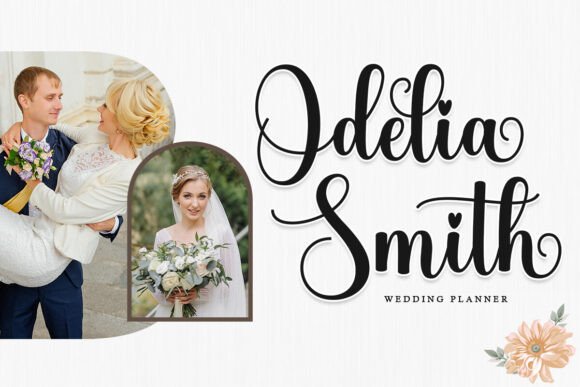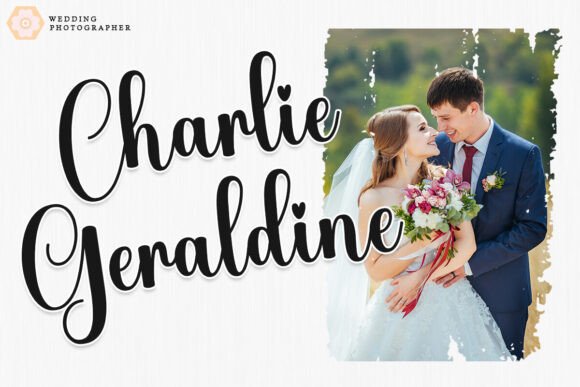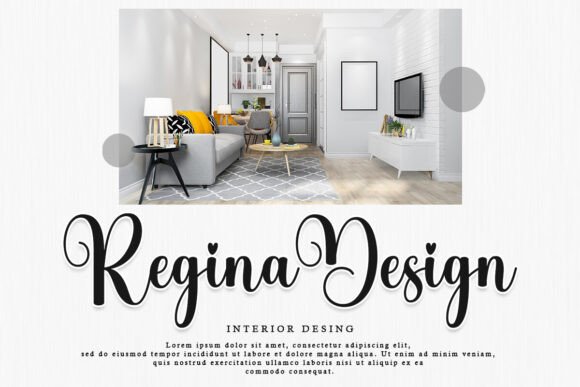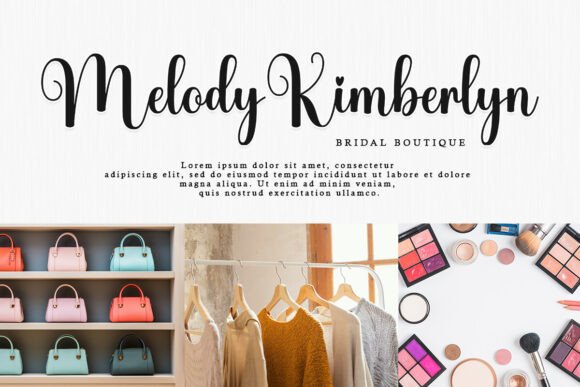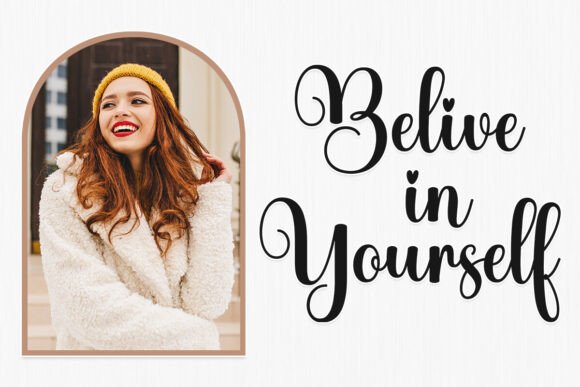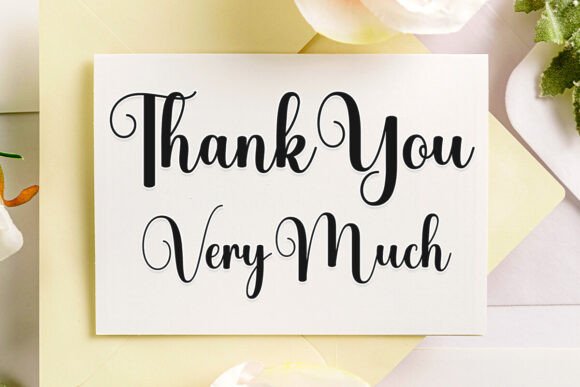
Ganesha Font: The Handwritten Font that Brings Warmth and Love to Your Designs
In the world of typography, fonts play a crucial role in conveying emotions and setting the tone for a design. Among the numerous fonts available, Ganesha stands out as a unique and captivating handwritten font that exudes warmth and love in every stroke. With its distinctive touch and alluring variety of letterforms, Ganesha brings a sense of authenticity and tenderness that permeates into every design.
The Unique Characteristics of Ganesha Font
Ganesha is a carefully crafted handwritten font that showcases a high level of attention to detail. Each letterform is meticulously designed to convey a sense of warmth and love, making it perfect for designs that require a personal touch. The font’s unique characteristics include:
- Handwritten style: Ganesha boasts a beautiful handwritten style that gives designs a personal and human touch.
- Alluring variety of letterforms: The font features a wide range of letterforms that add visual interest and depth to designs.
- Authenticity and tenderness: Ganesha’s distinctive touch brings a sense of authenticity and tenderness to every design.
Ganesha’s versatility makes it suitable for a wide range of design applications, including:
- Invitations: Add a touch of warmth and love to your invitations, making them extra special for weddings, birthdays, and other celebrations.
- Greeting cards: Create heartfelt greeting cards for various occasions, such as holidays, thank-you notes, and get-well cards.
- Branding: Infuse your brand with a sense of authenticity and tenderness, making it more relatable and endearing to your audience.
Why Choose Ganesha Font?
With so many fonts available, why choose Ganesha? Here are some compelling reasons:
- Emotional connection: Ganesha helps create an emotional connection with your audience, making your designs more impactful and memorable.
- Unique and distinctive: The font’s unique style sets it apart from other fonts, ensuring your designs stand out from the crowd.
- Easy to read: Despite its handwritten style, Ganesha is easy to read, making it perfect for body text and headings.
Tips for Using Ganesha Font Effectively
To get the most out of Ganesha, follow these tips:
- Pair with complementary fonts: Combine Ganesha with other fonts that complement its style, creating a harmonious and visually appealing design.
- Experiment with colors: Try out different colors to find the perfect match for your design, taking into account the font’s warm and loving personality.
- Use for headlines and body text: Ganesha is suitable for both headlines and body text, making it a versatile font for various design applications.
Ganesha font is a beautiful and captivating handwritten font that brings warmth and love to every design. Its unique characteristics, versatility, and emotional connection make it an excellent choice for designers and crafters. Whether you’re creating invitations, greeting cards, or branding materials, Ganesha is sure to add a soulful touch, making your designs extra special.